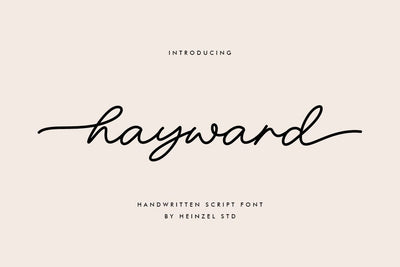
Hayward Handwritten Font With Tails
Introducing Hayward, a captivating handwritten script font that adds a touch of personal charm to your design projects. With its authentic and organic letterforms, this font brings a natural and warm feel to your work.
Crafted with meticulous attention to detail, Hayward captures the essence of genuine handwriting. Its fluid strokes and gentle curves create a sense of authenticity, making it perfect for personal branding, invitations, and heartfelt projects.
Hayward Features:
- Regular Version
- Numerical and Punctuation
- Begining and Ending Swashes
- Multilingual Language
This character set supports the following 21 languages: Afrikaans, Basque, Breton, Catalan, Danish, Dutch, English, Finnish, French, Gaelic (Irish, Scots), German, Icelandic, Indonesian, Irish, Italian, Norwegian, Portuguese, Saami (Southern), Spanish, Swahili, Swedish.